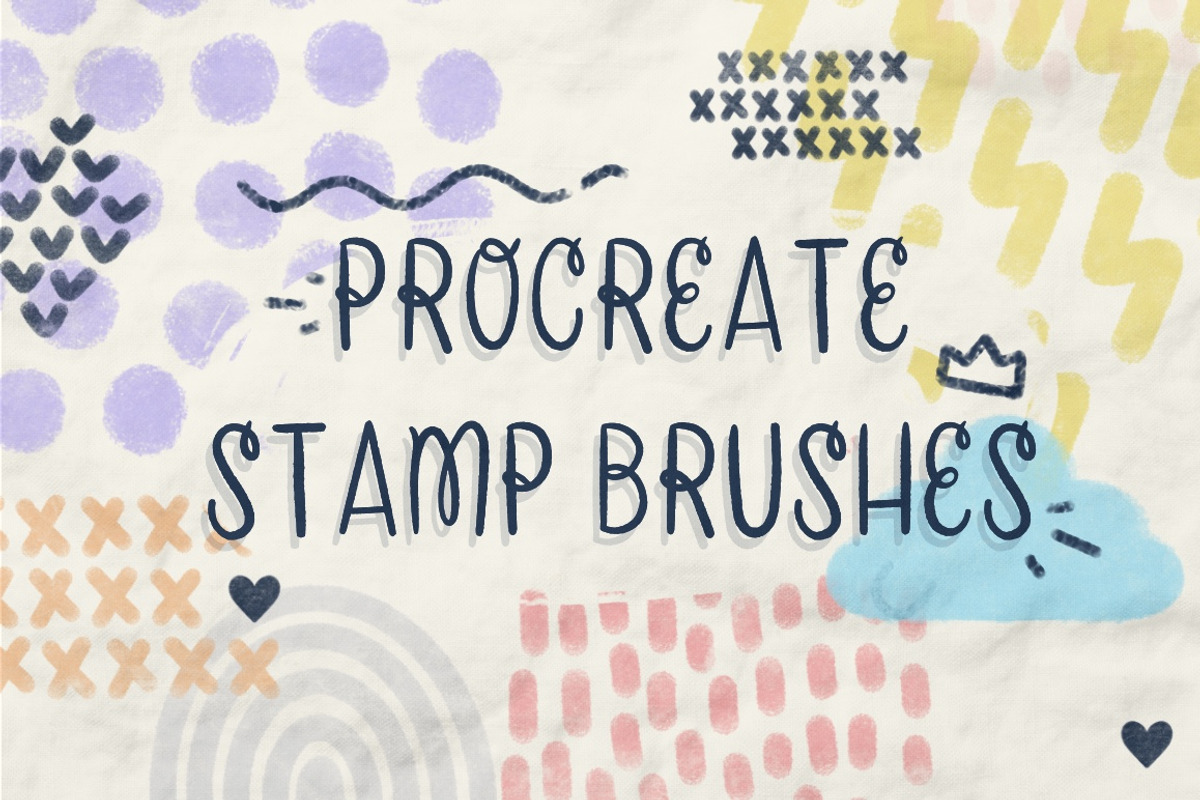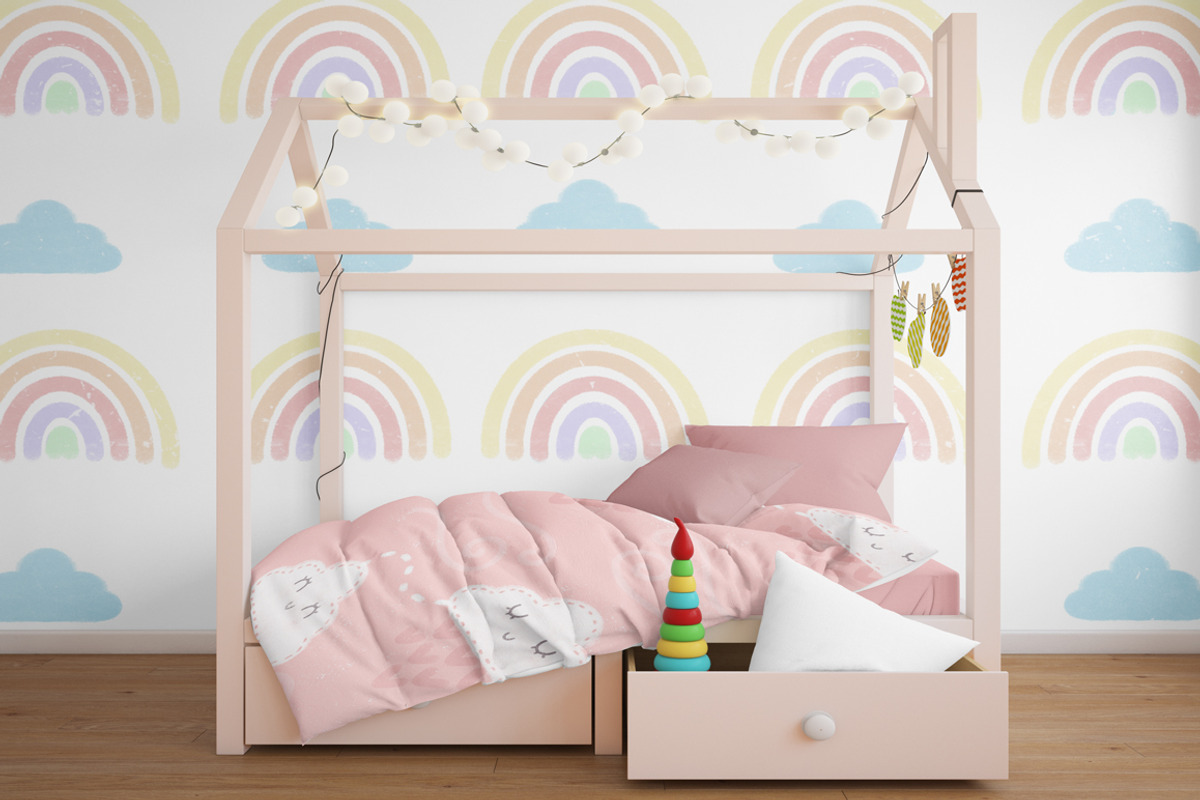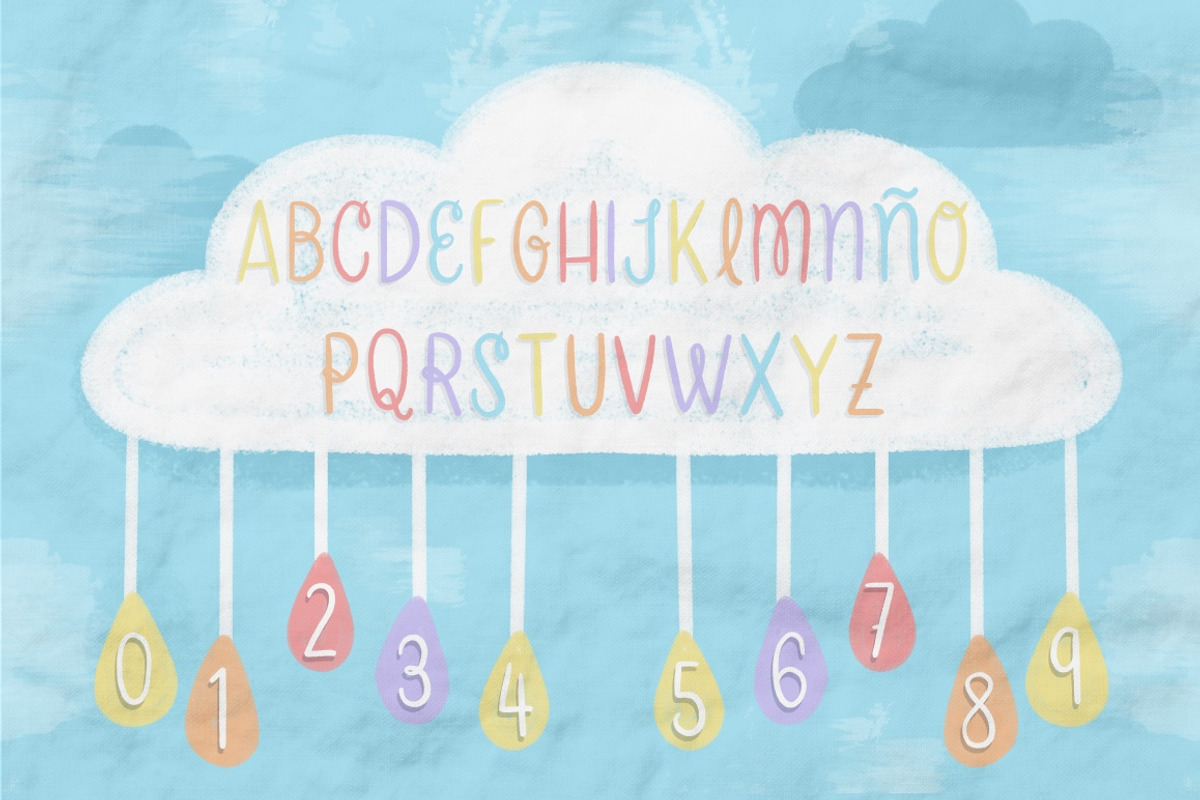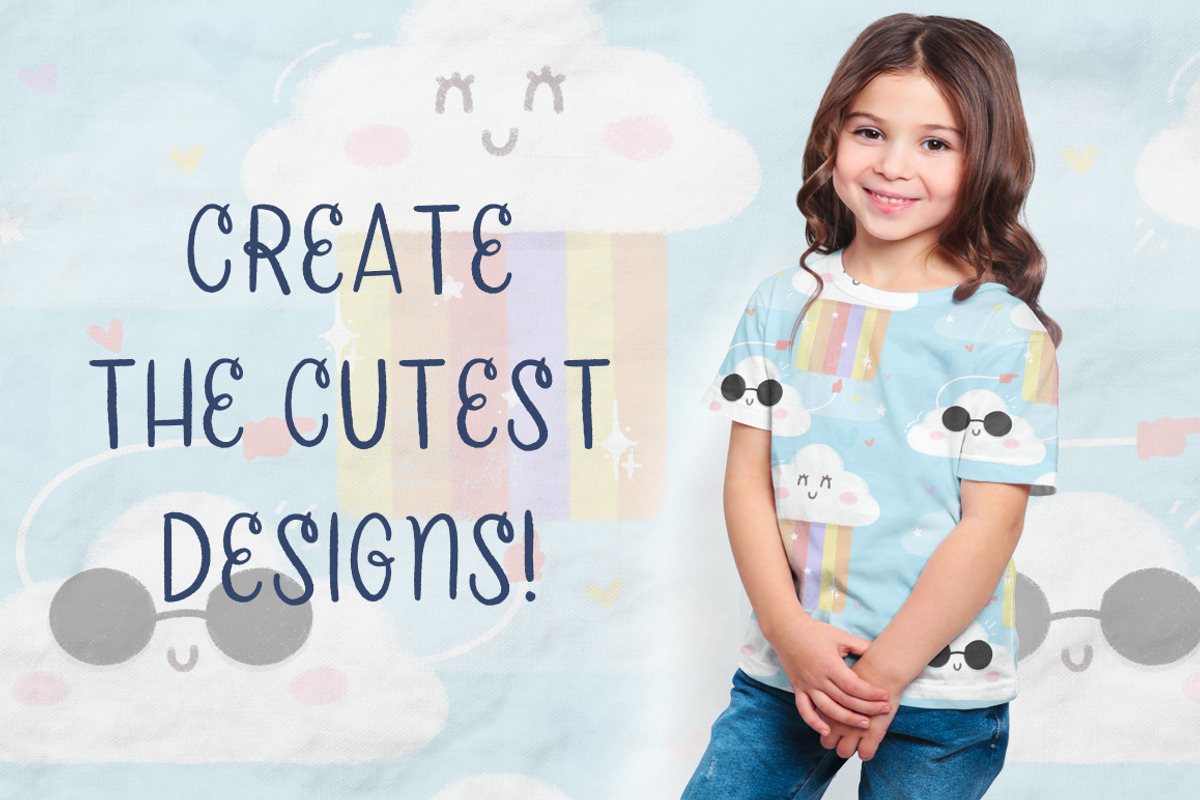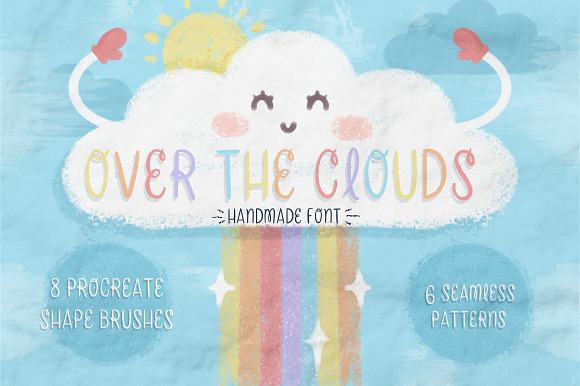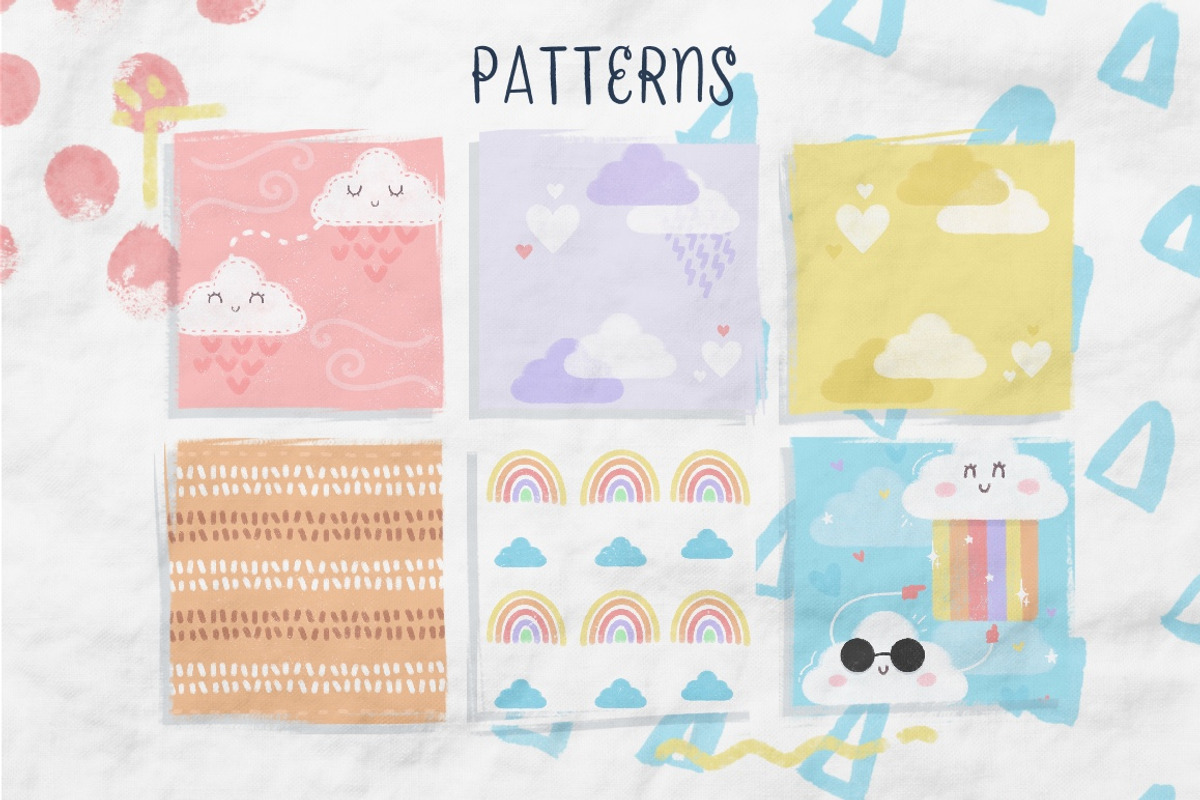
Over The Clouds - Font and Brushes
Over The Clouds is handmade cutie ready to brighten up your designs! This childish font can give the most bubbly vibe to your designs and these patterns can make anyone smile. This pastel rainbow colors are perfect for this font!
8 procreate stamp brushes!